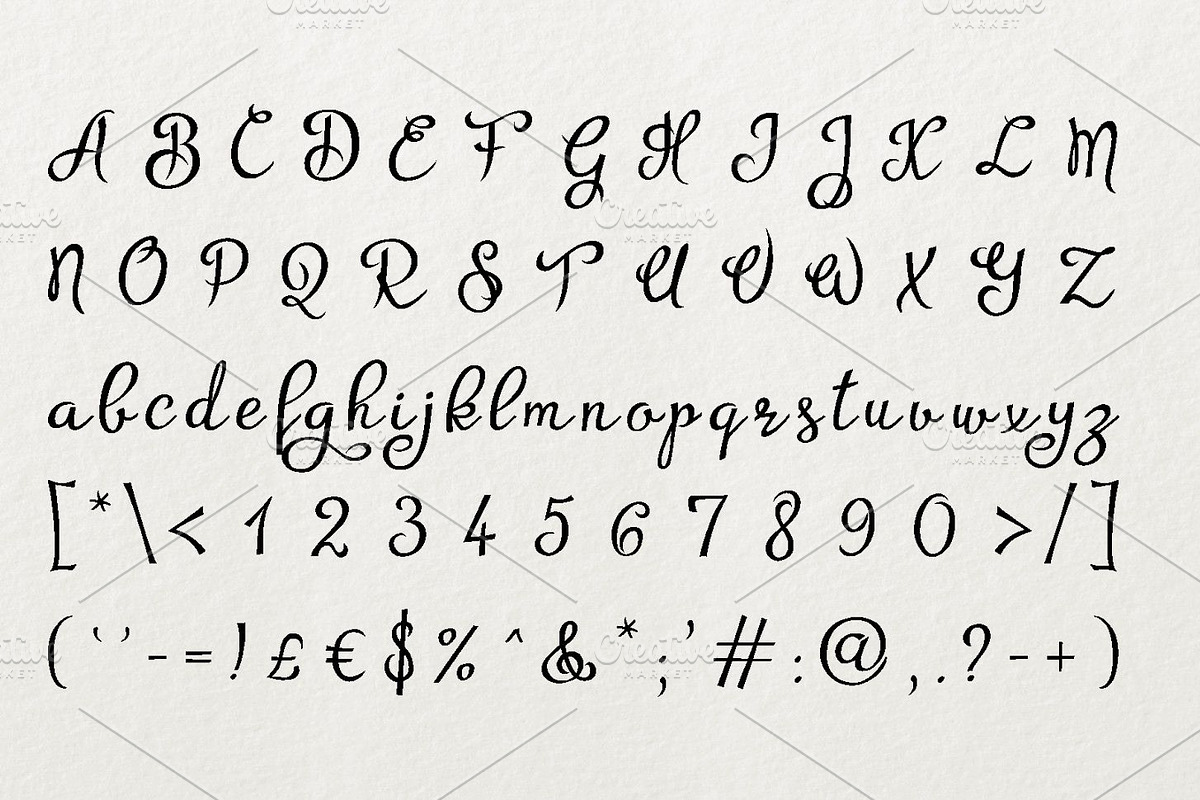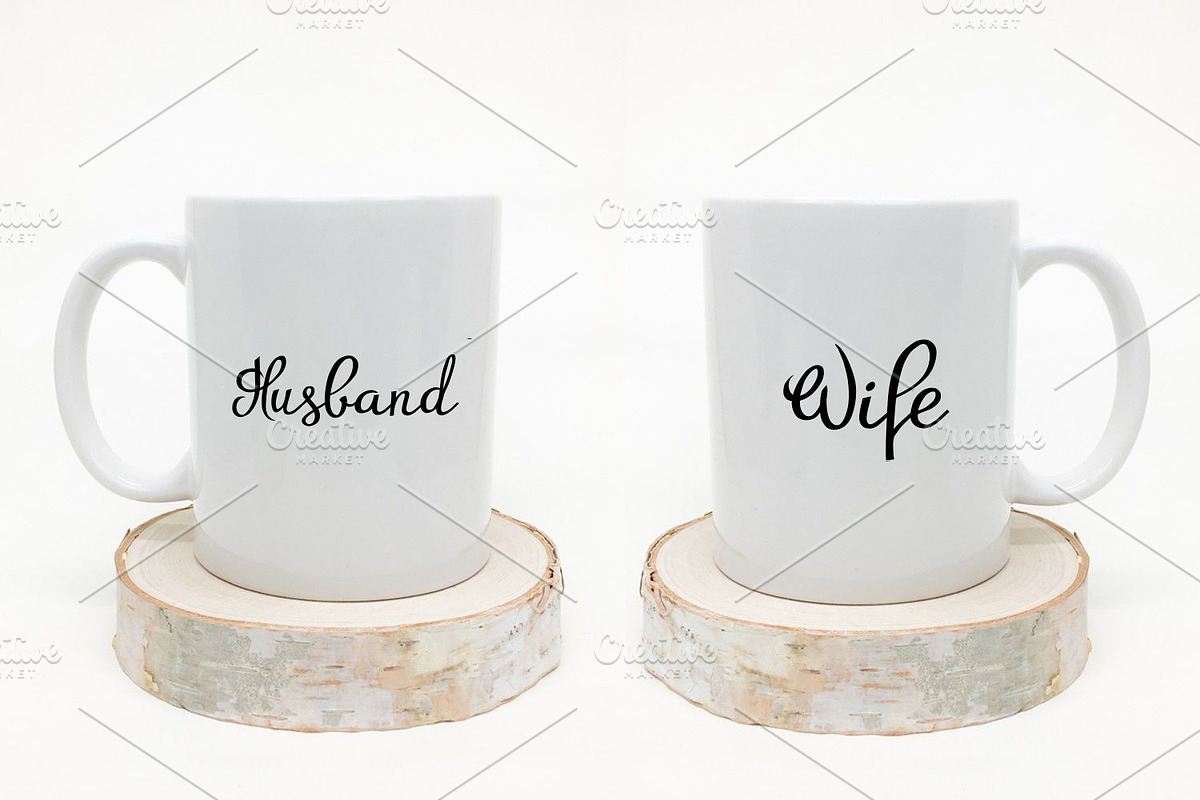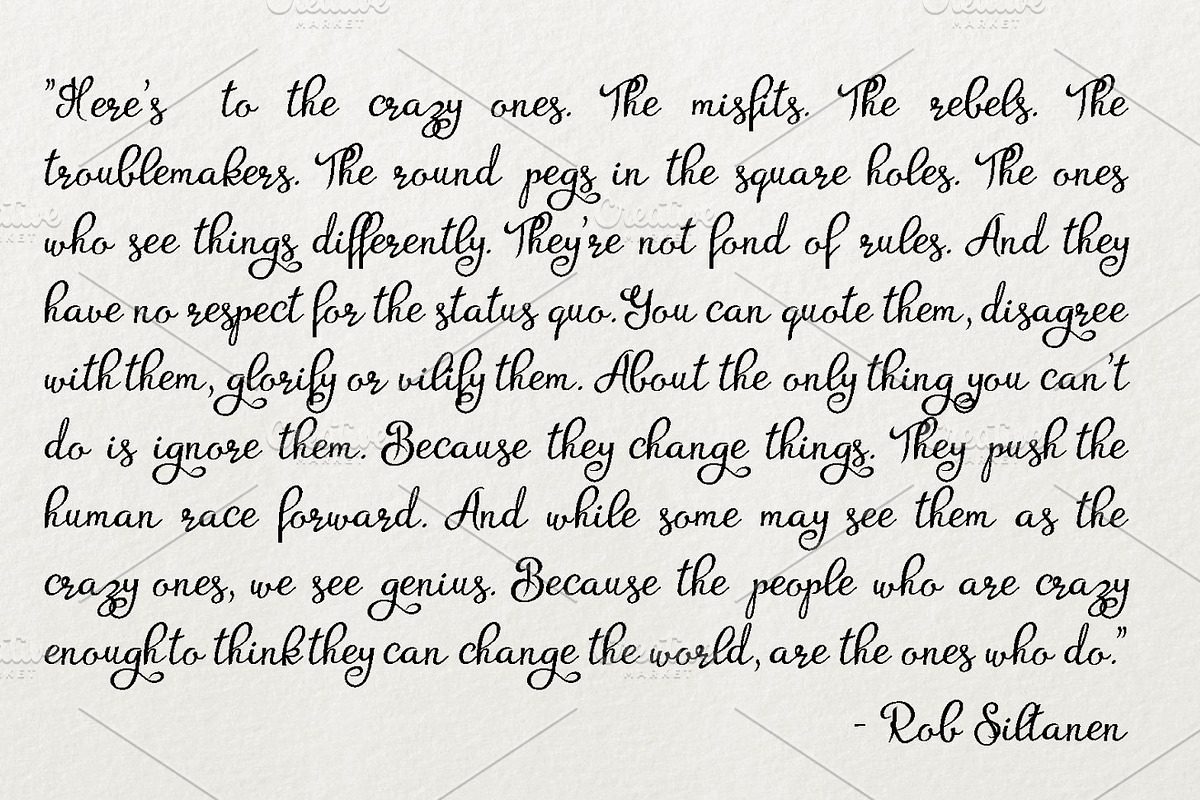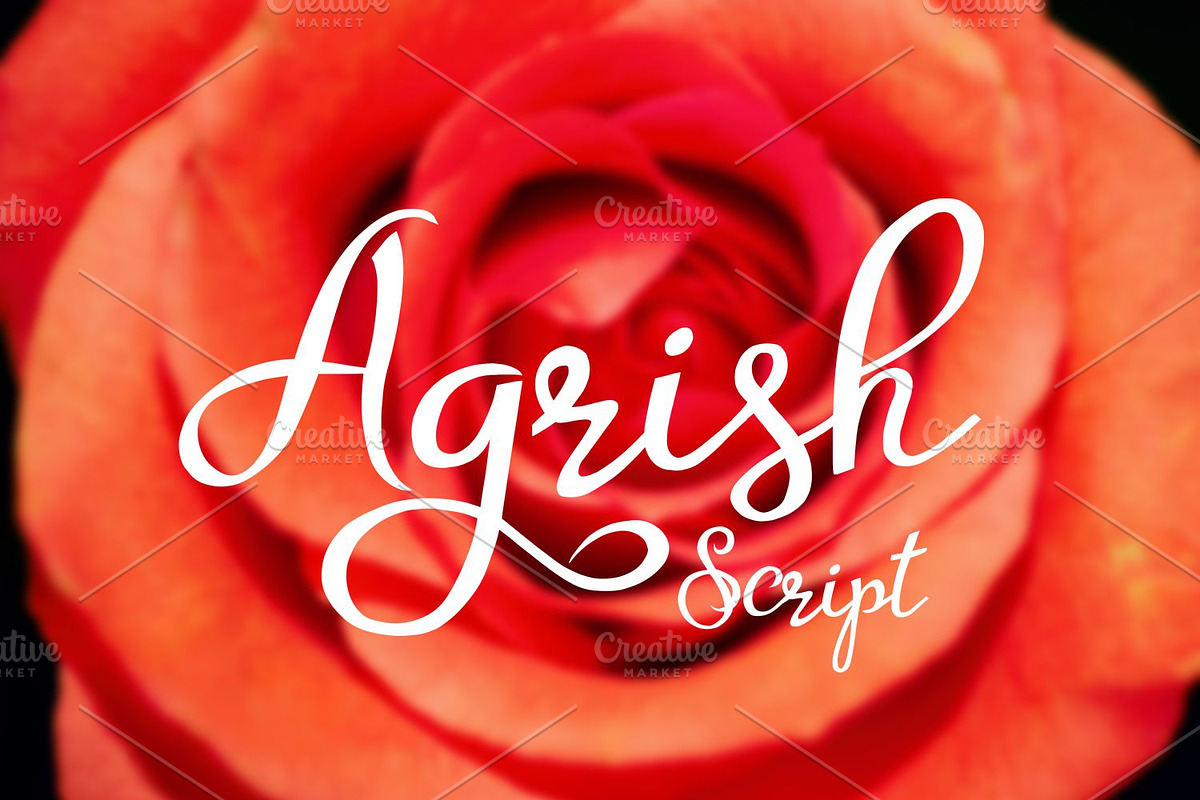
Agrish
Introducing Agrish handwritten typeface. Great for cards and many craft projects! Download and use across a huge range of programs such as Adobe programs, Corel programs, Cricut and many others!
Agrish by Digital Typeface Studio fits naturally into Branding, posters, packaging, typography.